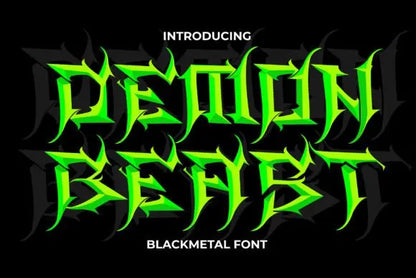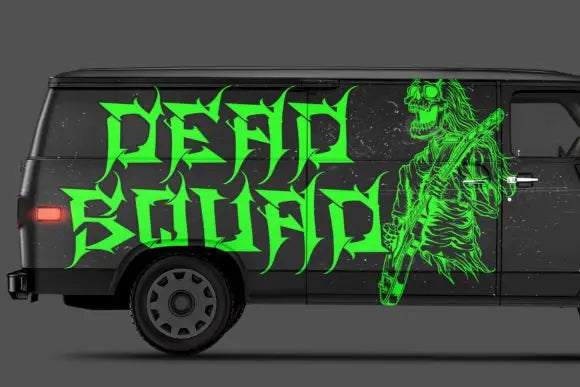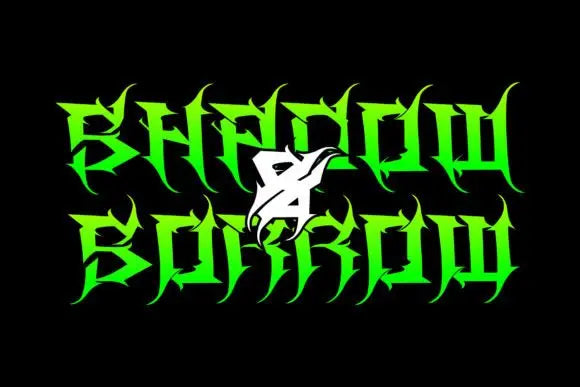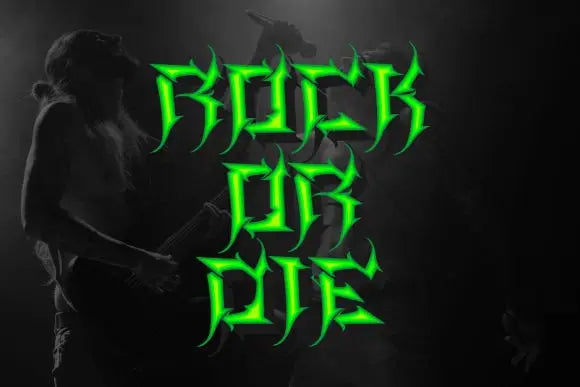
Demon Beast Font
Unleash Bold Creativity with Demon Beast Font
Looking for a high-impact typeface to elevate your designs? Demon Beast Font by Handsign.Studio is a fierce and dynamic font that brings power, intensity, and style to any creative project. Whether you're designing for gaming, horror themes, branding, or eye-catching posters, this typeface delivers an unforgettable visual impact.
Why Choose Demon Beast Font for Your Projects?
Designed for bold expression, Demon Beast Font features sharp, aggressive letterforms that make it perfect for strong branding, game graphics, merch, and more. Whether you're looking for a menacing display font or a unique typeface for dark aesthetics, this font adapts effortlessly to different creative needs.
Easy-to-Use & Fully Customizable Typeface
Key Features of Demon Beast Font:
✦ Powerful & Aggressive Design – Ideal for gaming, horror, and edgy branding.
✦ High-Quality Typography – Professionally crafted for clarity and impact.
✦ Customizable – Adjust weight, spacing, and alternates to suit your style.
✦ Perfect for Various Design Needs – Works beautifully in digital and print formats.